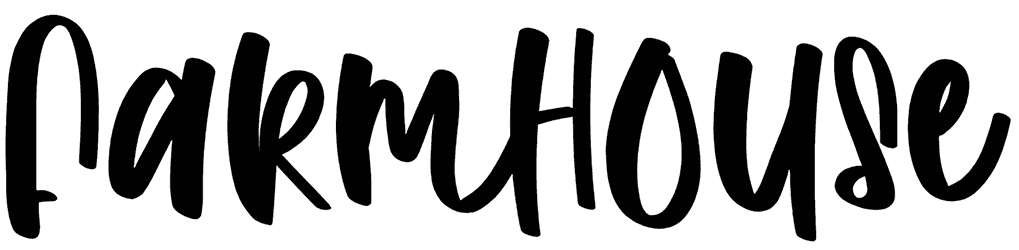
Farmhouse Font
For your modern and cute design, test this unique handwritten font. Farmhouse has a soft and realistic style that can be matched with a lot of items. Even if this farmhouse font doesn’t cover uppercase letters, just try it on your novel projects, such as postcards, t-shirts, mugs, or the like, and make them salient.